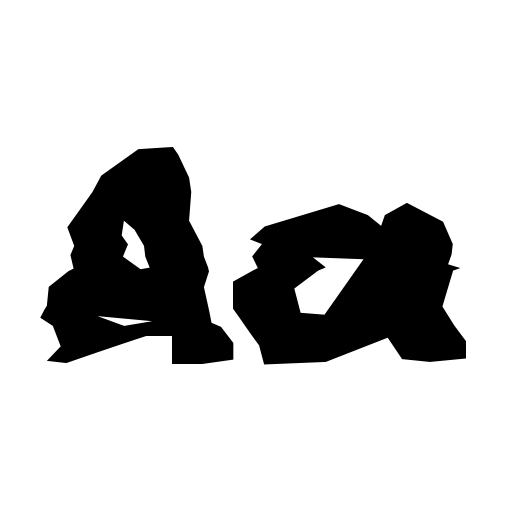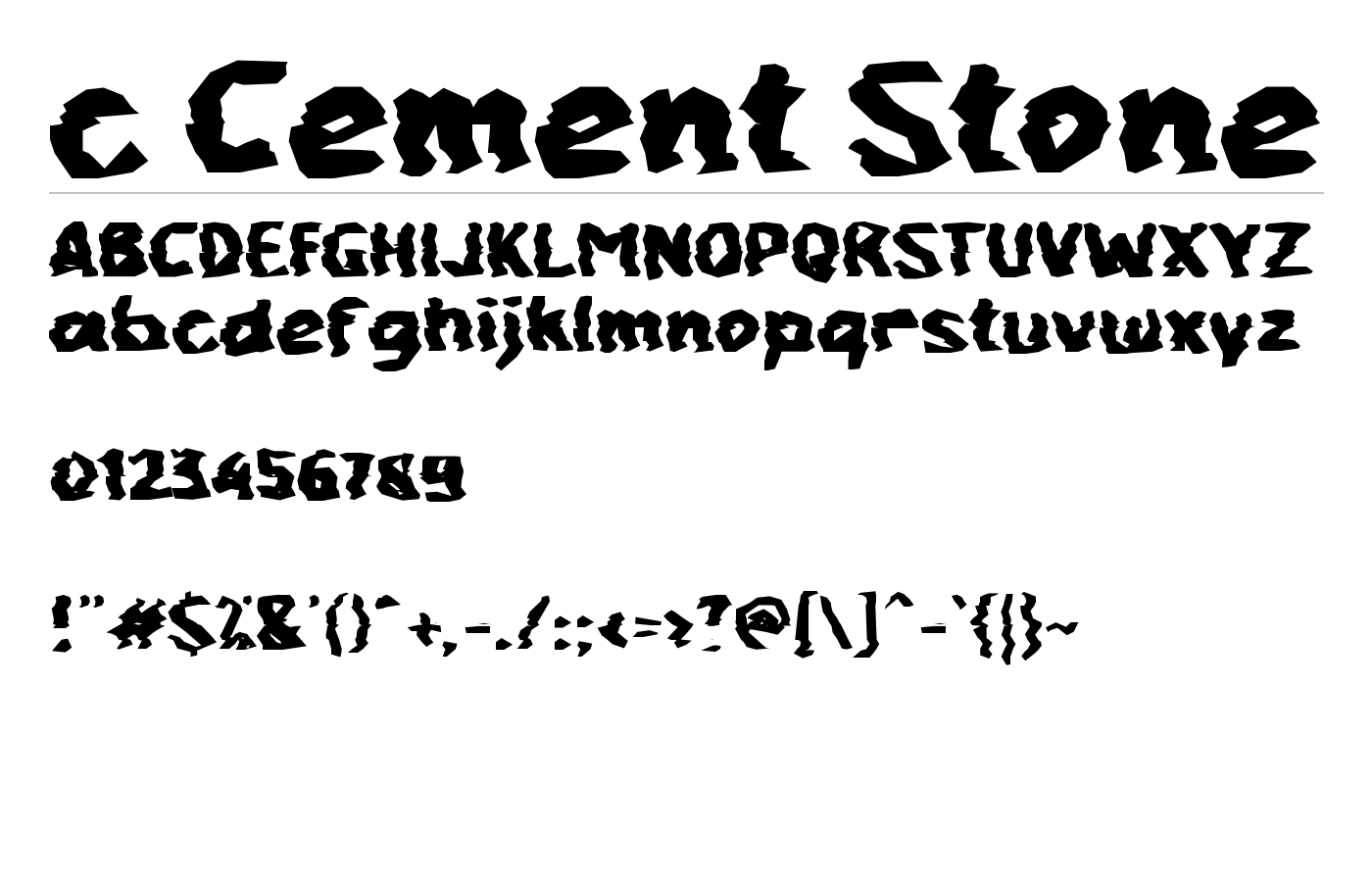
Cement Stone is a bold, rough-edged display font with a textured, chiseled appearance that evokes ruggedness and strength. Its irregular, blocky letterforms convey a handmade, stone-carved feel, making it ideal for projects that want to emphasize toughness, outdoor themes, or an edgy, organic vibe. This font stands out best in headlines, logos, and branding where a raw, impactful style is desired.
c Cement Stone Font
About c Cement Stone Font